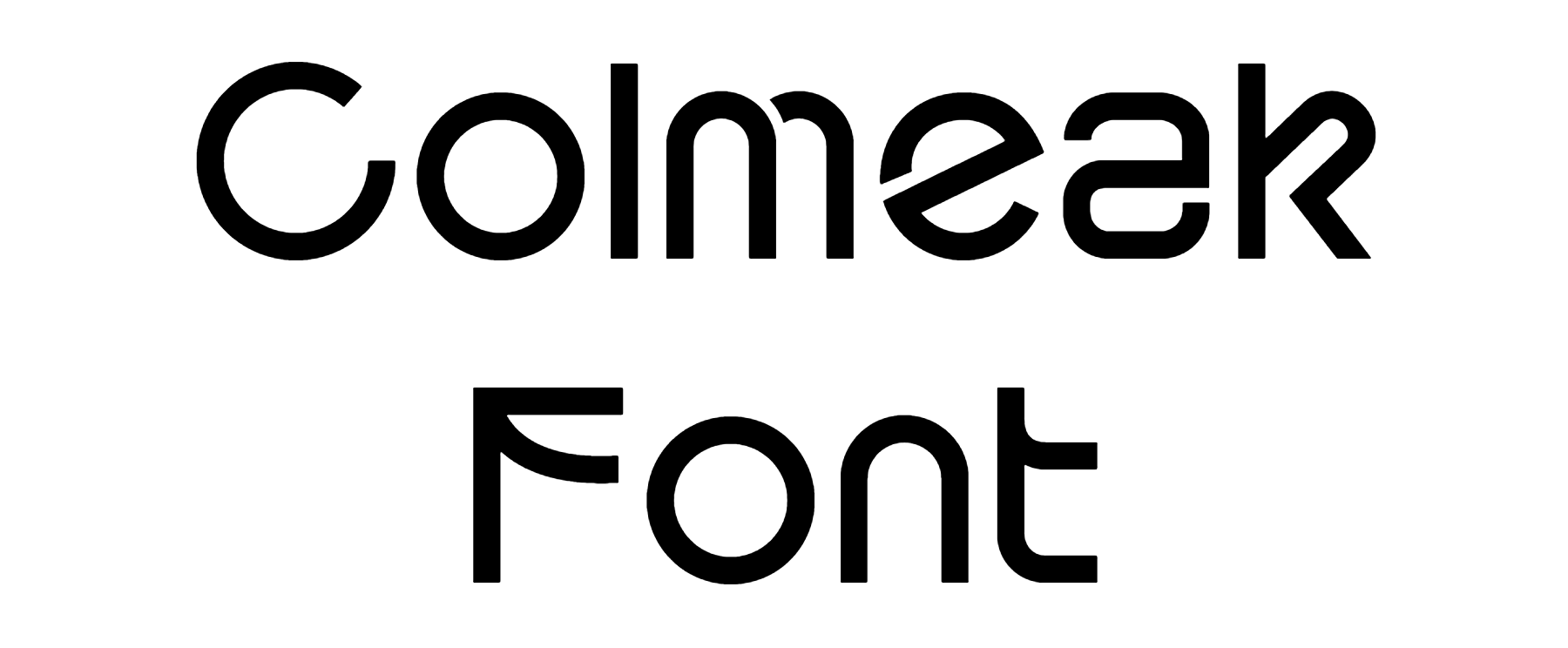
Colmeak
Colmeak is a fancy font designed by Khurasan and published by Colmeak (2025). It's a decorative display font with plenty of personality, made to grab attention. It's a free download, and you can try it with your own text in the preview above first.
What You Can Type With Colmeak
With complete upper and lowercase letters and all ten digits, Colmeak is ready for real wording, not just a single headline. Everyday marks like &, !, ? and @ are there too. Thanks to its accented letters, it also works for Spanish, French, German, Portuguese and Italian, not just English.
Where Colmeak Works Best
Think of Colmeak for posters, logos and eye-catching headlines. Use it for one standout word or headline and let simpler fonts handle the rest.
Who designed Colmeak font?
Does Colmeak support accented letters?
Yes. Colmeak includes the accented letters needed for Spanish, French, German, Portuguese and Italian, so it works for more than just English.